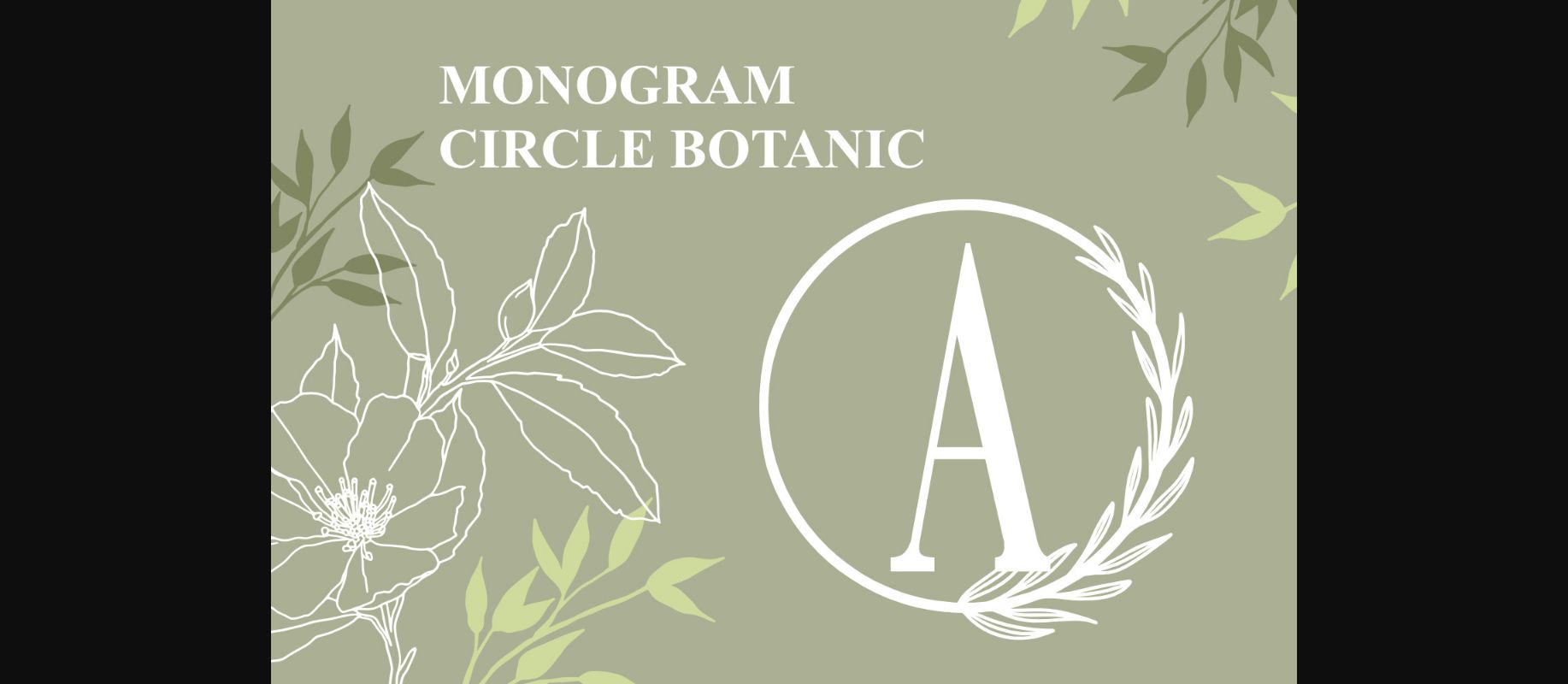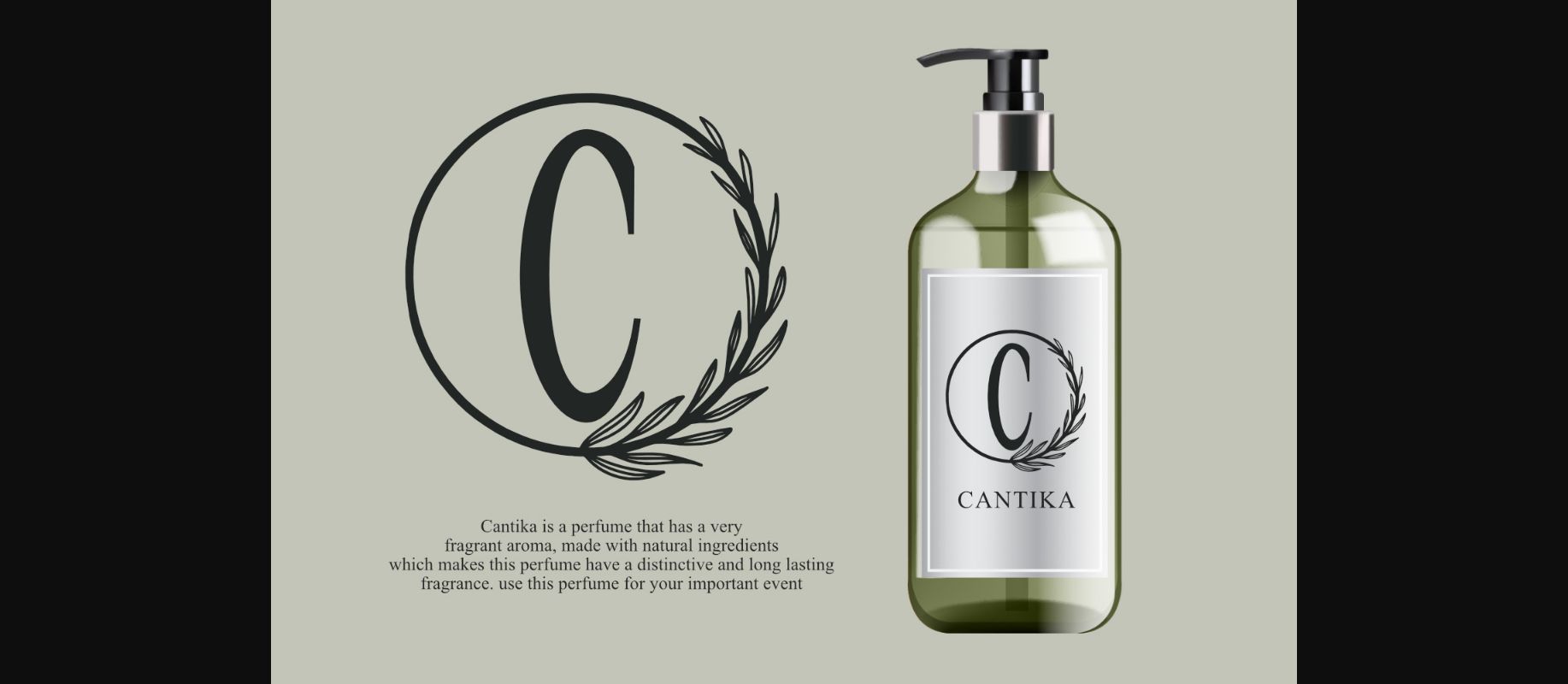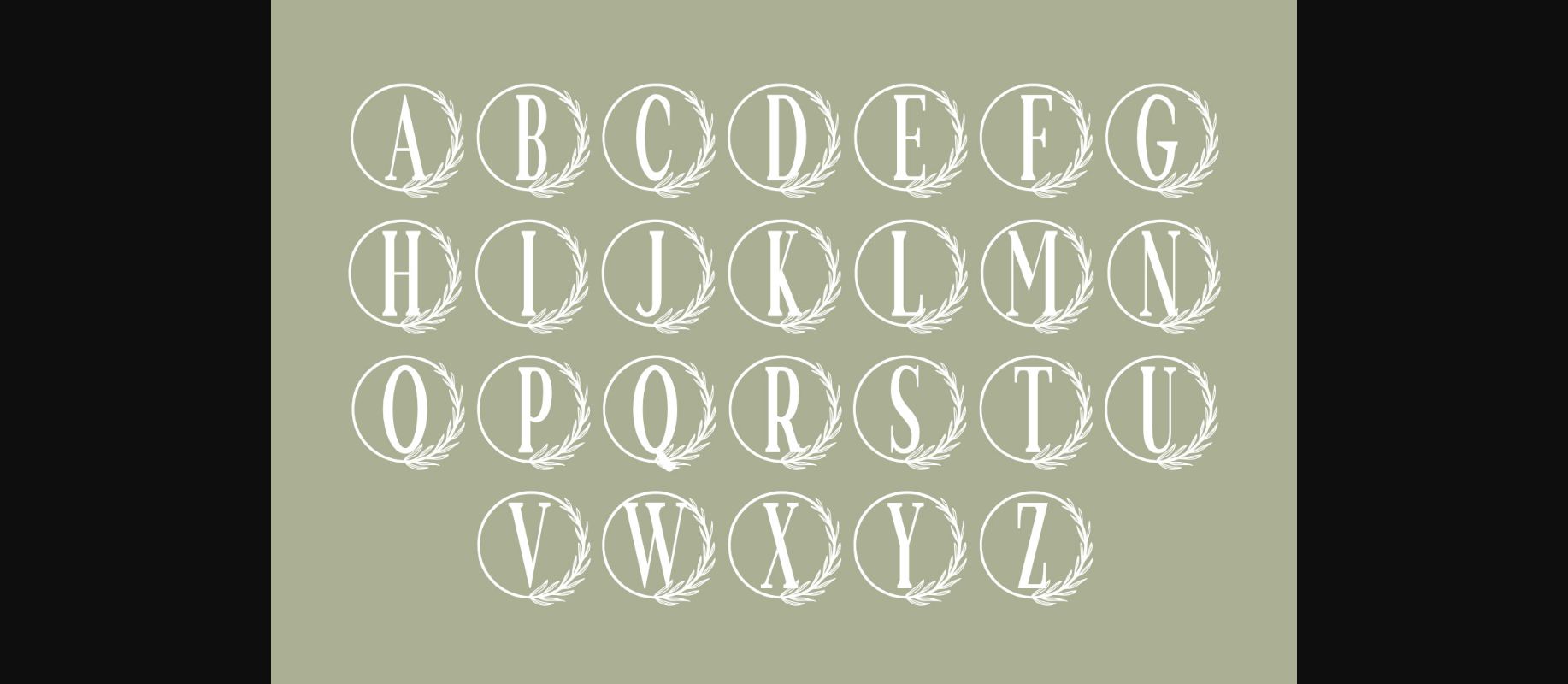
Monogram Circle Botanic is a beautiful monogram font. This font will add a feeling of love to any craft idea, be it wedding crafts, invitations, greeting cards, Valentines, logos, and others.